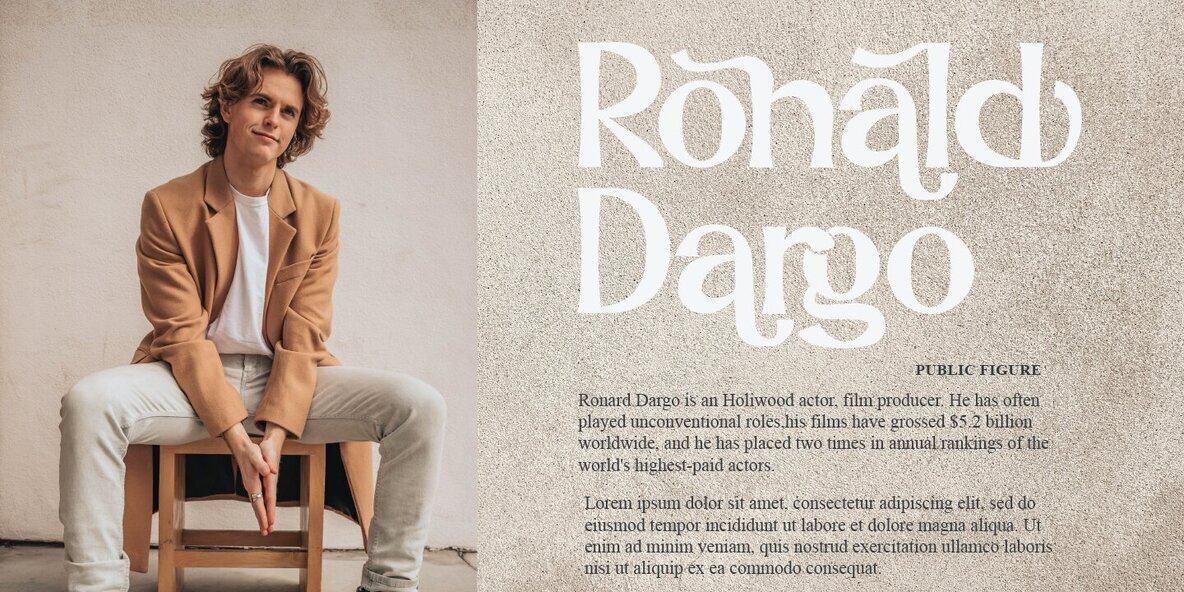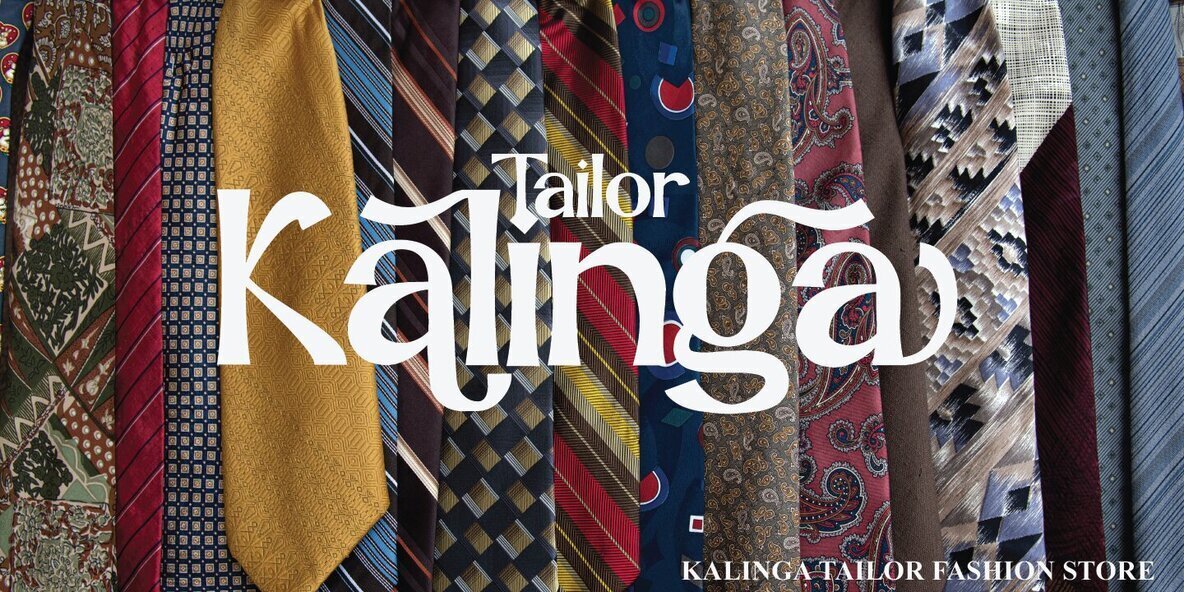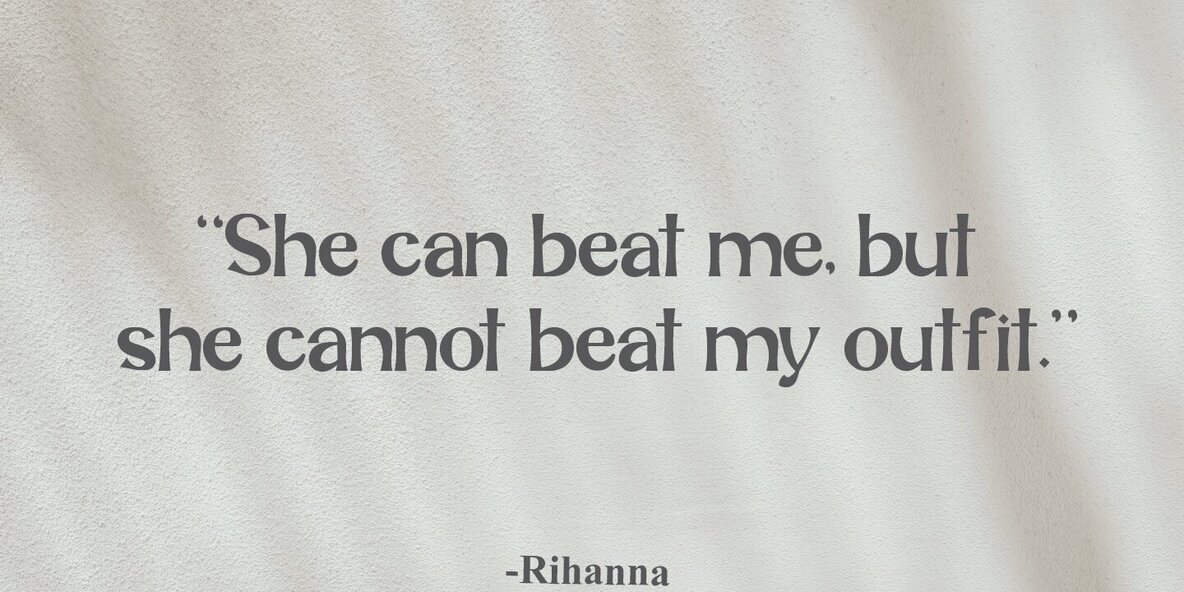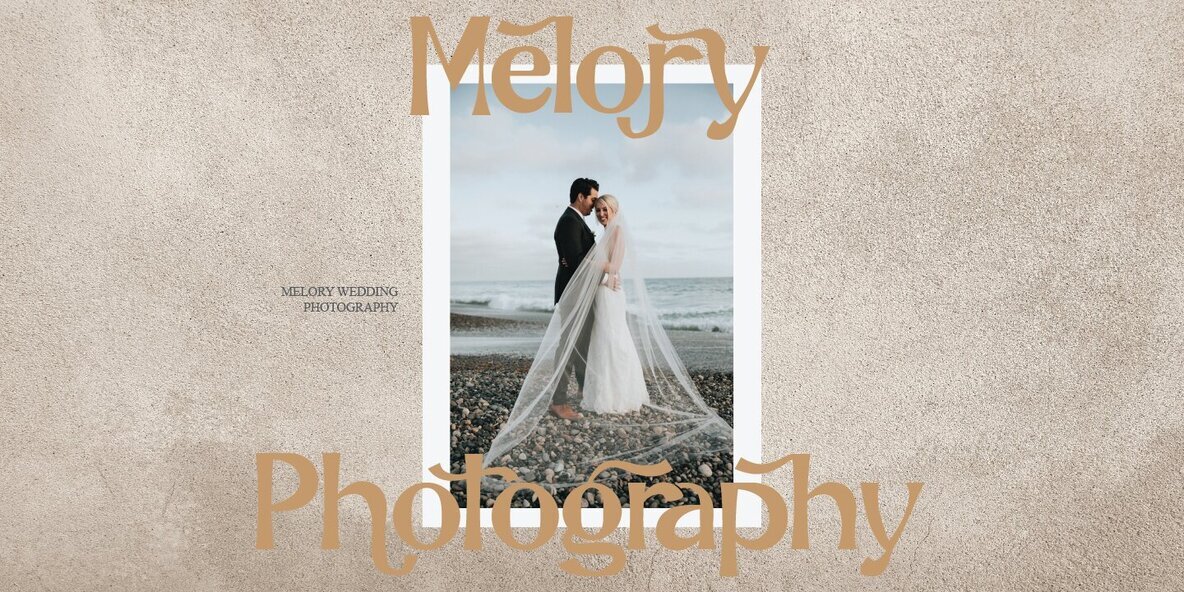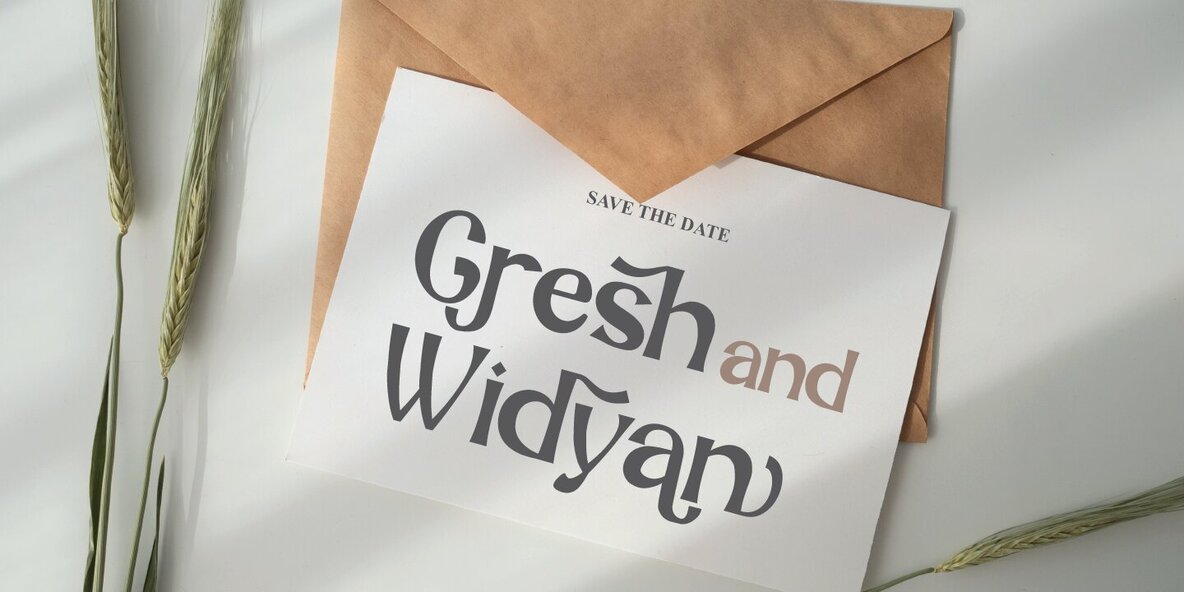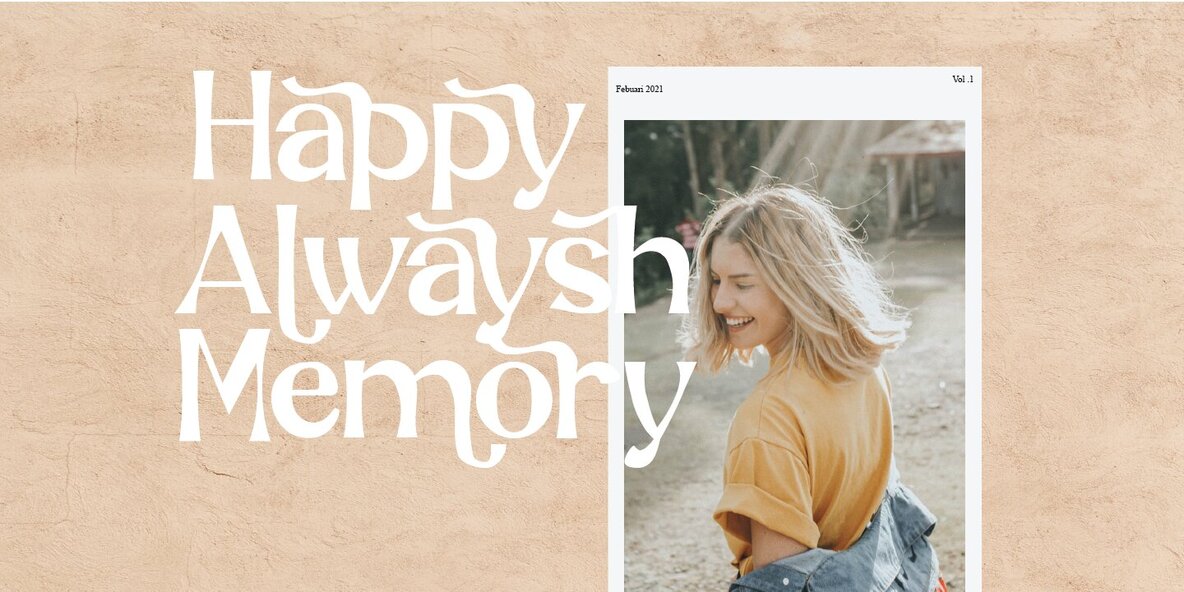
Anbigu Font
Anbigu
Anbigu is classic semi serif font, and Anbigu features unique and modern serif look and
a fancy and modern serif font will elevate a wide variety of projects, from logos and stationery to magazine covers and social media posts. This typeface will take your designs to the next level!